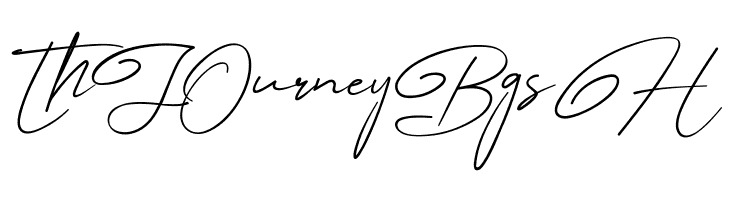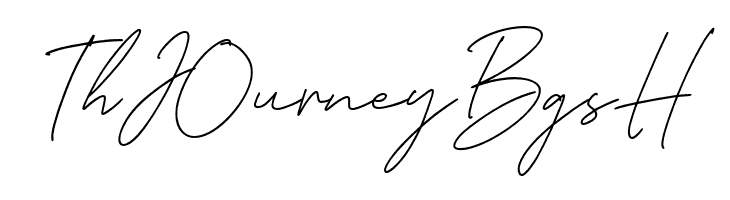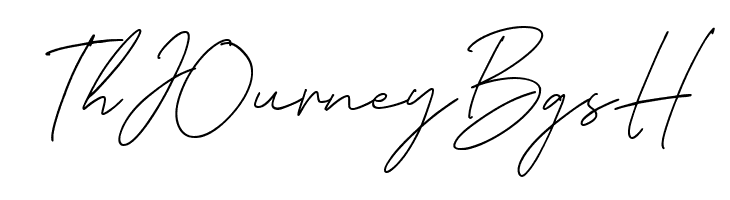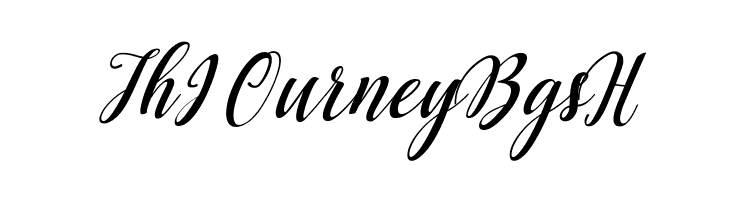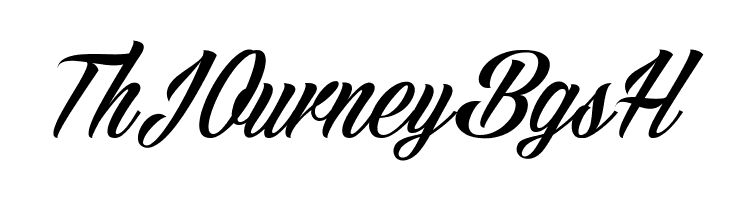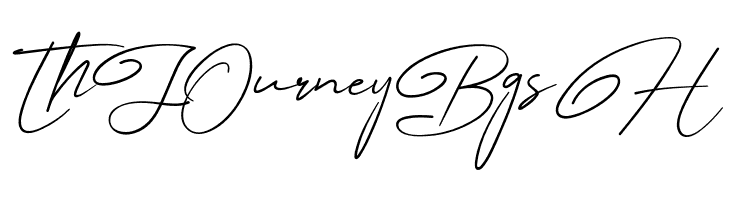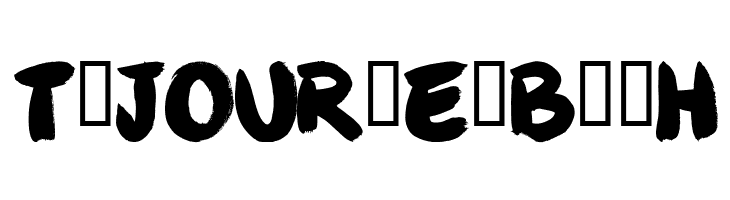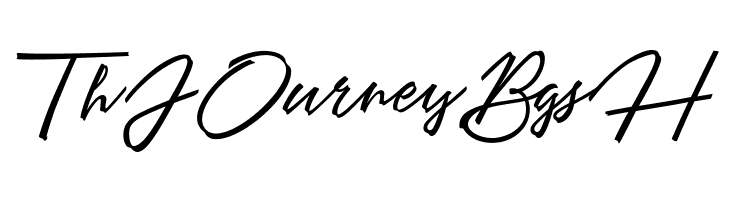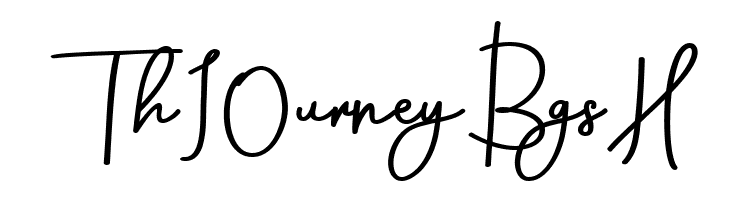
• AneishaScriptBold
A bold, expressive script font with fluid, connected strokes.
• Angel Brotxa Regular
A bold, brush-style font with dynamic and expressive strokes.
• Angelic Bonques Free Script
An elegant, cursive handwritten font with smooth, flowing strokes.
• AngelicBonquesFree-Script
A graceful, handwritten script font with smooth, connected strokes.
• Angelines Script
An elegant script font with fluid, cursive strokes and a sophisticated style.
• AngellieScript
An elegant script font with flowing, cursive letters and high contrast.
• Angelus!"
• Angers Script
A graceful script font with flowing, cursive strokes and elegant curves.
• Angers Script
A dynamic and fluid script font with elegant, flowing letterforms.
• AngillaScriptPERSONALUSE
A dynamic, cursive script font with elegant, sweeping strokes.